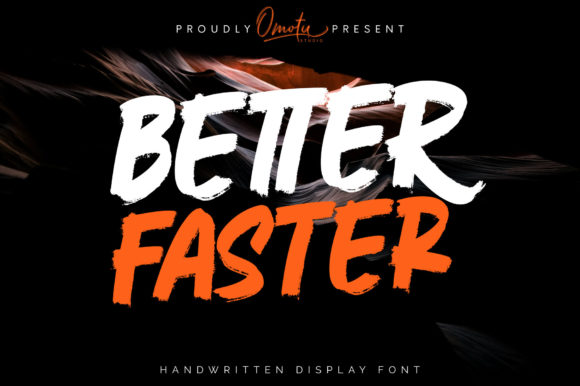
Journey through history with Better Faster Font, the display font that captures the essence of Latin quotes like no other. Inspired by the grandeur of ancient Rome, this font is meticulously designed to bring a touch of timeless elegance to your designs.
With Better Faster Font, you'll elevate your Latin quotes to new heights, adding a layer of intrigue and sophistication that commands attention. Its bold and confident strokes dance across the page, inviting readers to delve into the depths of your words.
Unleash your creativity and let Better Faster Font paint a rich tapestry of visual intrigue. Whether you're crafting stunning posters, captivating book covers, or intricate logos, this font is your ultimate weapon of choice. Its versatility knows no bounds, adapting seamlessly to a wide range of design projects.
Immerse yourself in the beauty of Better Faster Font and witness the transformation of your Latin quotes into captivating works of art. Let your words take center stage, adorned with the grace and eloquence of this remarkable font.